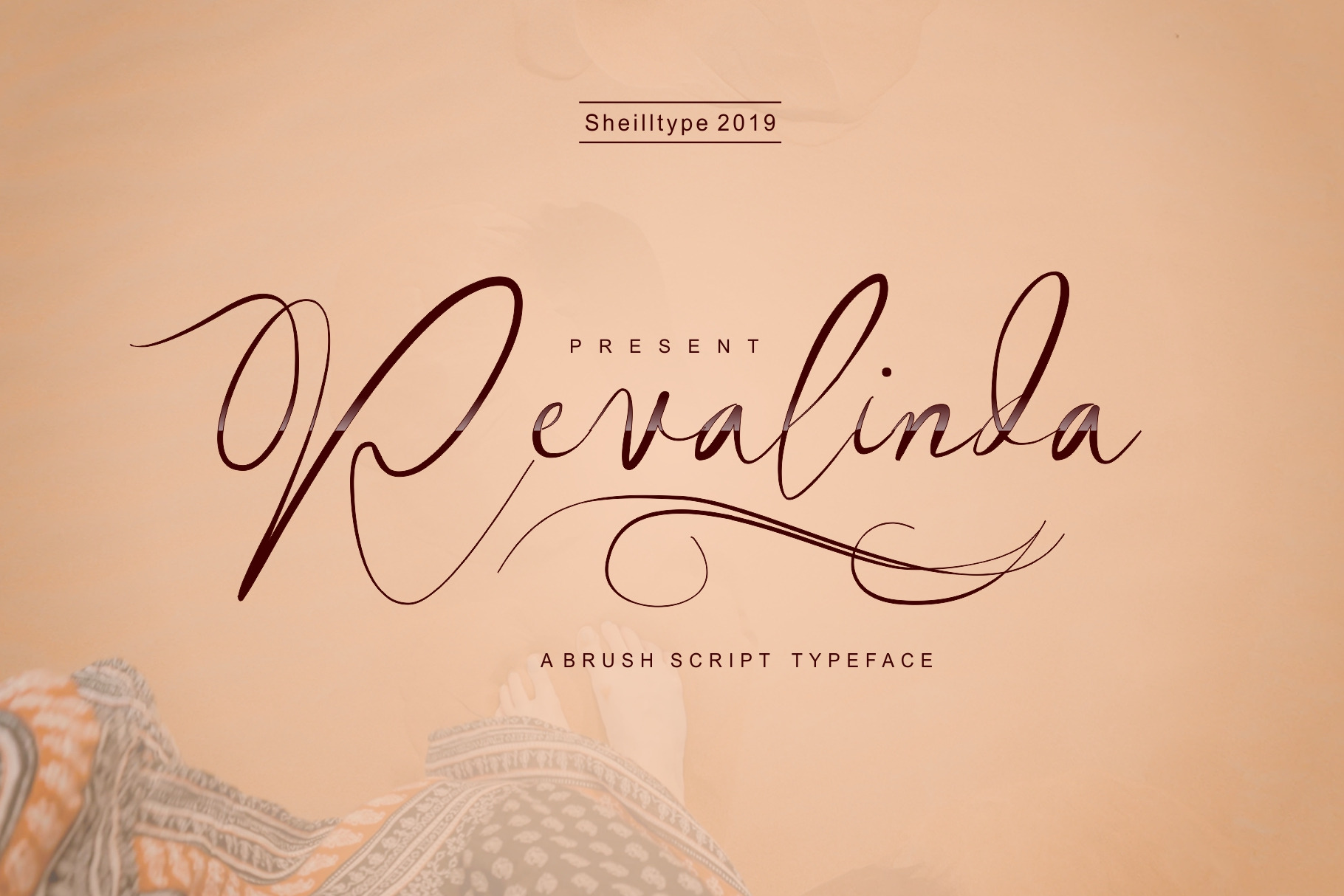
Revalinda brush font
Hello, Font Lover Thank you for visiting my font product, Revalinda is a Brush-based font but digitally scratched but still keeping the letters in order to still get the beauty and essence of natural brush script fonts, with ornamental variations and applying caligrafi swirl, and elegant font thickness that is very suitable on designs such as:
This font has several features Opentype:
- Stylistic Alternate Uppercase and Lowercase
- SS01